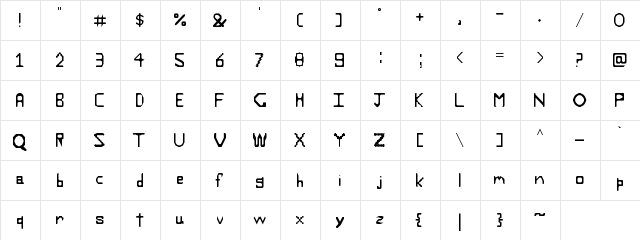
Z Font Regular
| Designer | jordells |
Design Context for Z Font Typeface
Z Font offers clean, dependable letterforms without strong stylistic allegiance, making it a practical choice for designers who need flexibility.